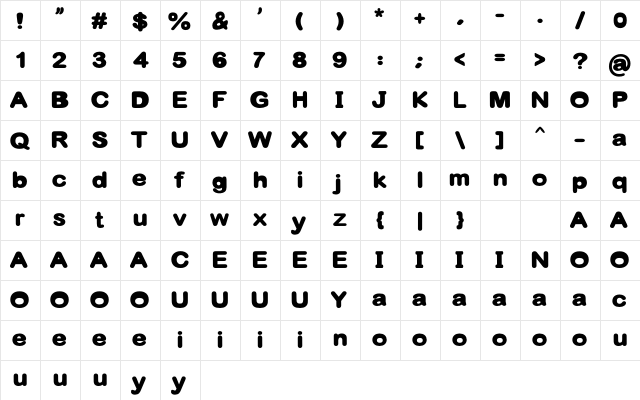
Achieve It Regular
| Foundry | Fontles |
| Designer | Qara Anass |
Design Context for Achieve It Typeface
Achieve It takes a measured approach to typography — its balanced proportions and neutral character make it a reliable workhorse for both digital and print work.